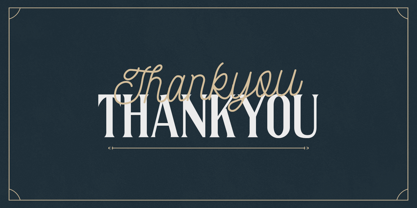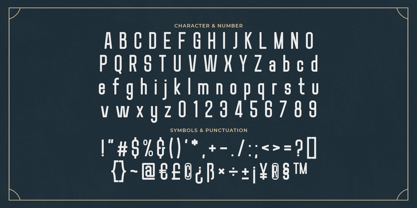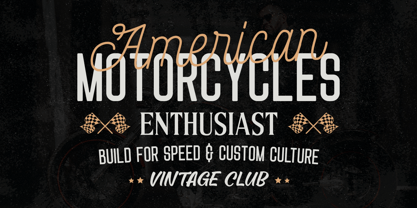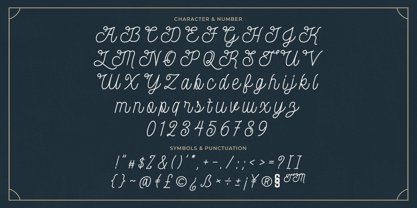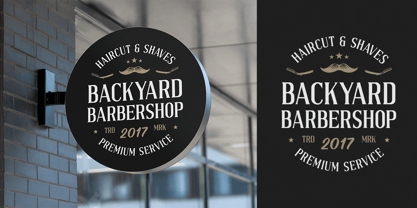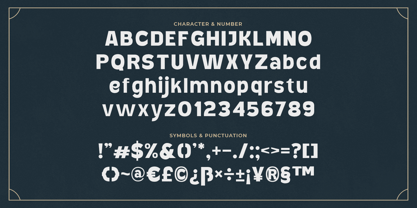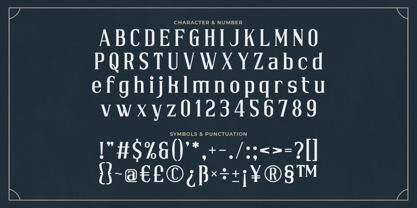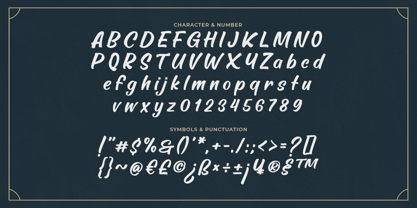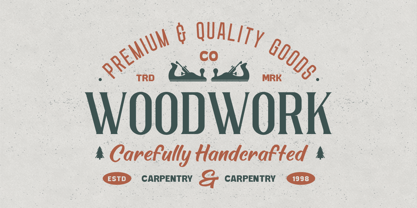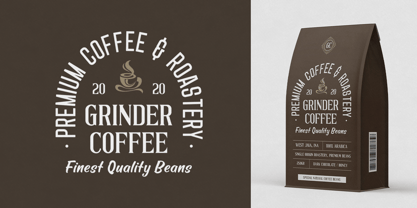
Marilynd
by Typefactory
The Marilynd Font Family was designed by Hilmius Akbar and published by Typefactory. Marilynd contains 5 styles and family package options. More about this family
Introducing "Marilynd" - a vintage font pack that takes you on a nostalgic journey through the timeless charm of retro typography, offering a diverse collection of fonts inspired by different eras.
With its variety of styles and decorative elements, "Marilynd" brings versatility and character to your designs, making it perfect for vintage-inspired projects, including posters, labels, signage, packaging, and more.
Embrace the classic elegance of "Marilynd" as it effortlessly enhances your creations. With its authentic retro vibe and attention to detail, this font pack allows you to evoke the nostalgia of bygone eras while adding a unique touch to your designs.
Step into the world of vintage typography with "Marilynd" and let your designs capture the timeless allure of retro aesthetics.